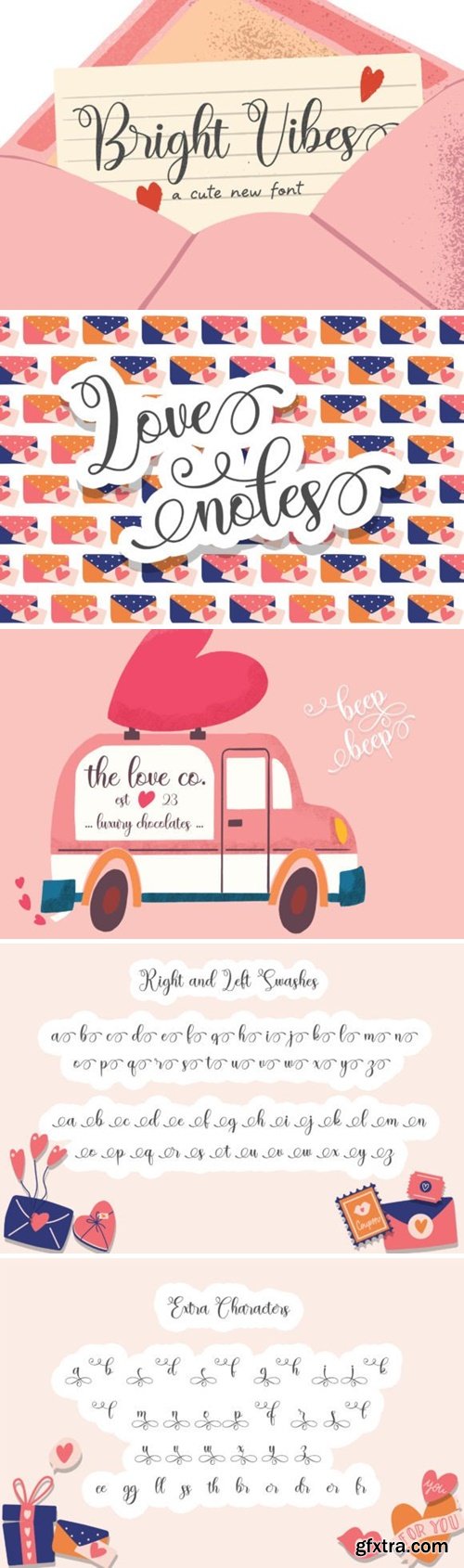
Ringtone Font
font has a wide spectrum of applications ranging from greeting cards to headlines and is guaranteed to add a romantic feel to your next project. This font is PUA encoded which means you can access all of the glyphs and swashes with ease!